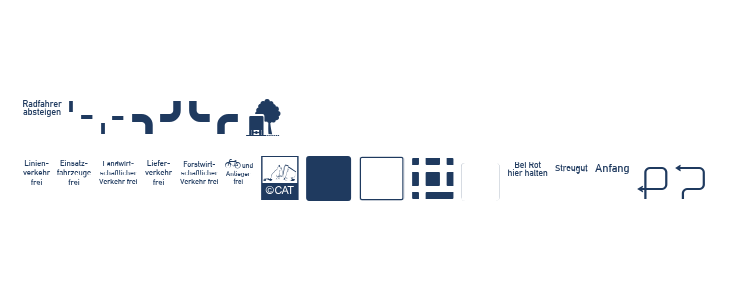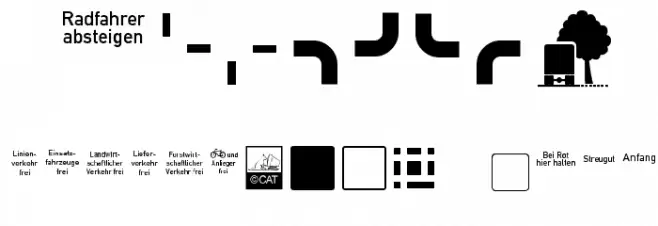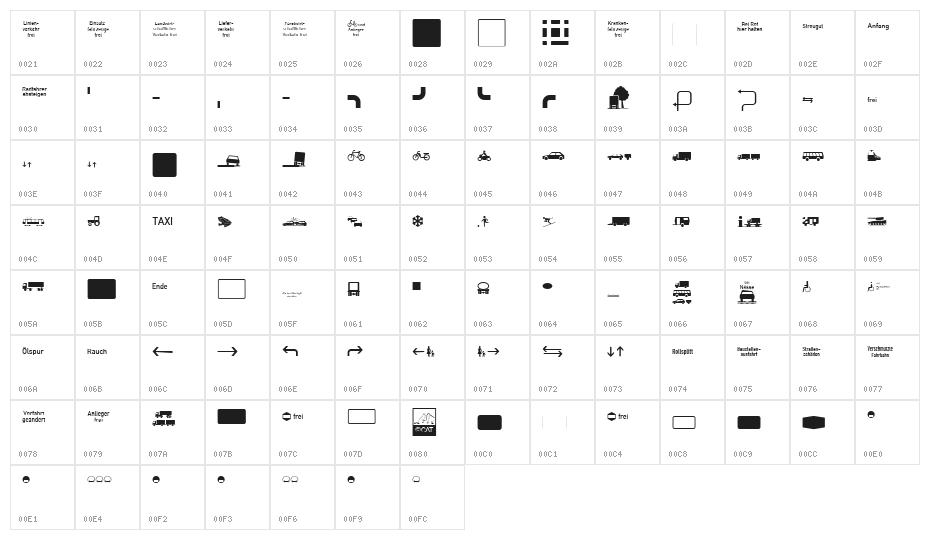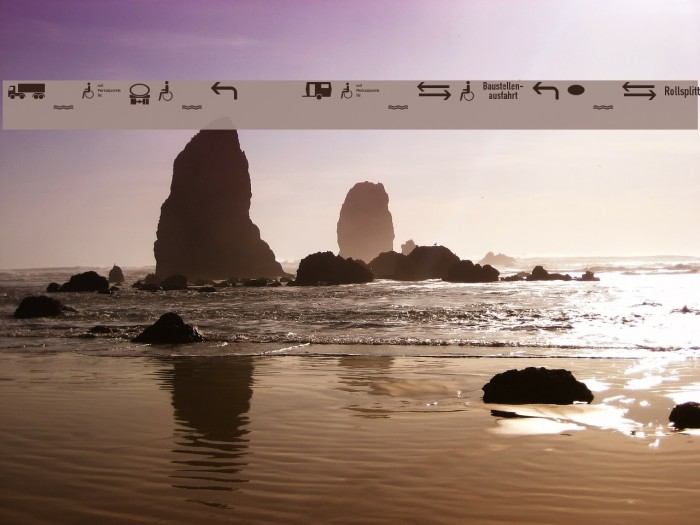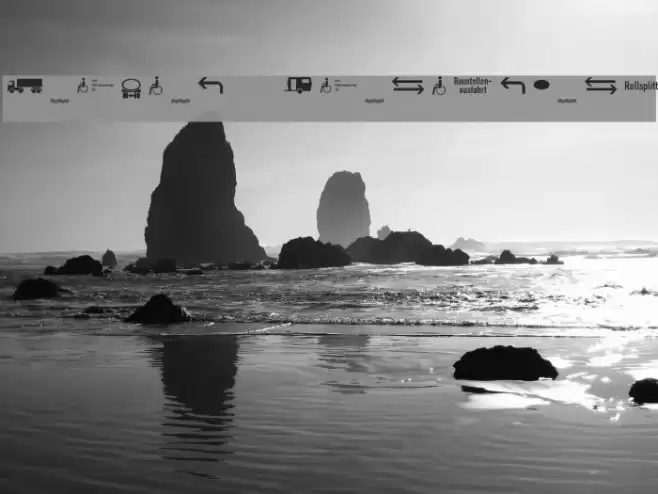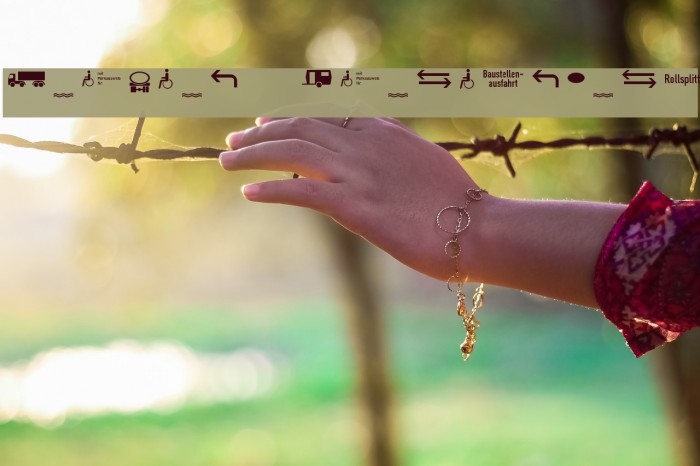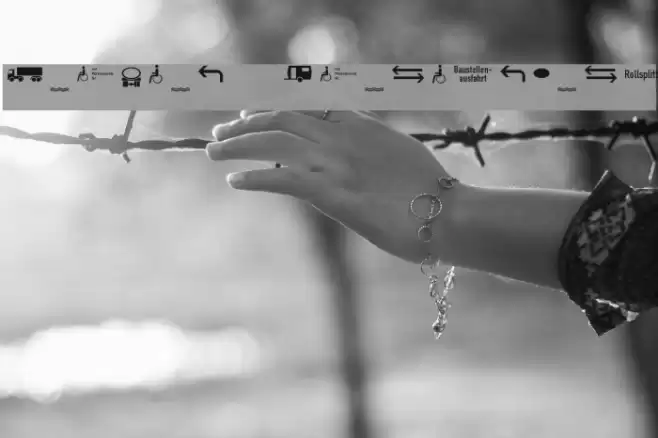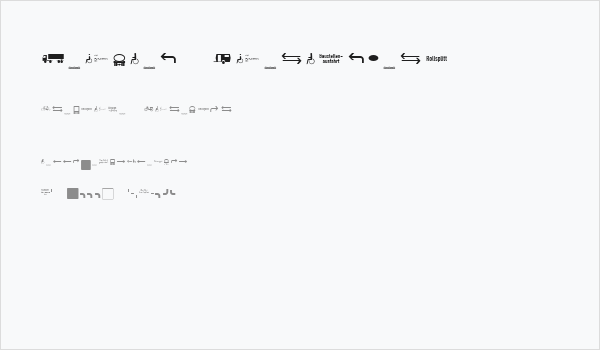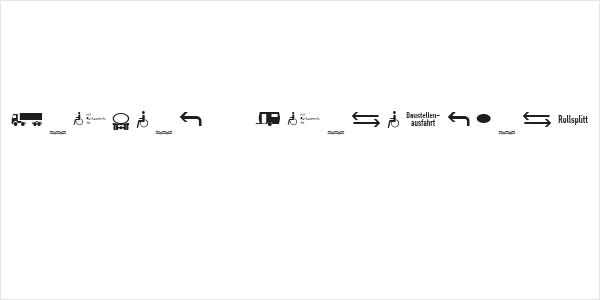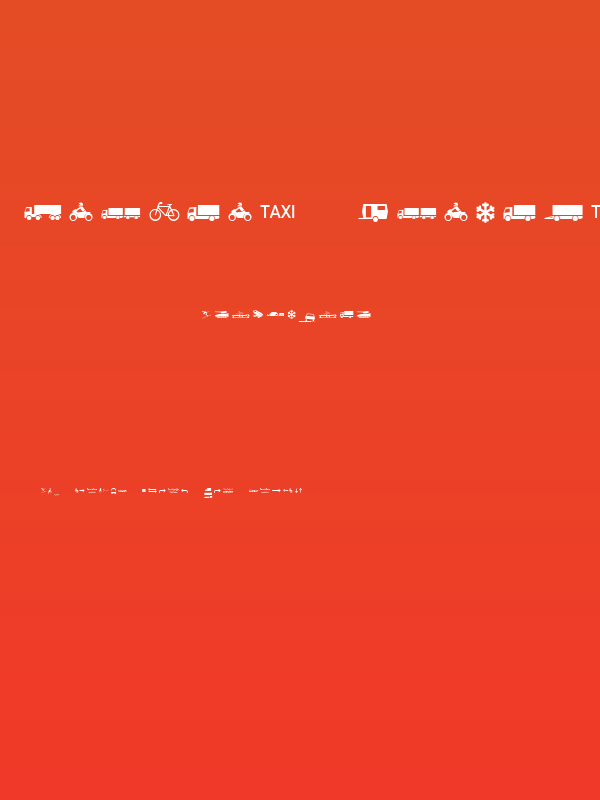
Zeichen Vierhundert Font
Zeichen Vierhundert Description
A pictogram and symbol-based font featuring simple, bold, and highly legible icons related to transportation, traffic, and road signage, accompanied by clear sans-serif text. The icons include vehicles, arrows, accessibility symbols, and various road-related graphics, all rendered in a uniform, high-contrast style.
| Overall Style | Modern, Functional, Informational |
| Use Case | Signage, Infographics, Maps, Instructional Materials |
| Proposed Projects | Wayfinding systems, traffic signage, transportation maps, instructional diagrams, public information displays. |